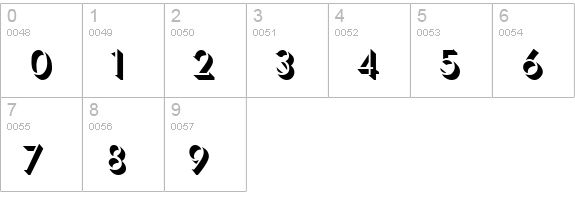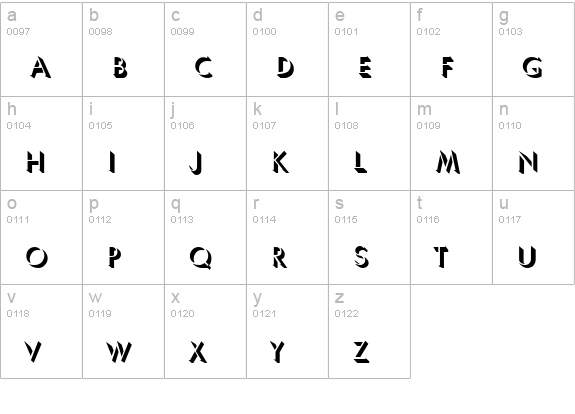
Ultra Shadow Font Details
Ultra Shadow is an extreme-weight, display variant in the Ultra typeface family \xE2\x80\x94 well suited to extreme display use where maximum visual weight is required.
Ultra Shadow font is a visually captivating and stunning typeface that will add a touch of elegance and sophistication to any design project. Its intricate details and intricate shadow effects make it perfect for creating eye-catching headlines, logos, and branding materials. This font combines the perfect balance between boldness and subtlety, creating a unique and contemporary look that is sure to make a lasting impression. Each letter is carefully crafted with precision to ensure smooth lines and flawless curves, giving your designs a professional and polished finish. The shadow effects in Ultra Shadow font add depth and dimension, creating a sense of depth and perspective that adds a touch of realism to your designs. The shadows seamlessly blend with the letters, creating a seamless and cohesive look that is both visually appealing and visually striking. One of the best things about Ultra Shadow font is that it is available for free download at FontsMarket.com. This means that you can easily access and use this stunning font in your design projects without having to spend a fortune. Whether you are a professional designer or a design enthusiast, this font is a must-have in your collection. With its versatility and timeless appeal, Ultra Shadow font is perfect for a wide range of design projects, from print materials such as posters, brochures, and flyers, to digital designs such as websites, social media graphics, and presentations. Its bold and captivating presence will instantly grab attention and leave a lasting impression on your audience. So don't wait any longer, download Ultra Shadow font for free at FontsMarket.com and start creating stunning designs that will truly stand out. Unleash your creativity and let this font elevate your designs to new heights of excellence.